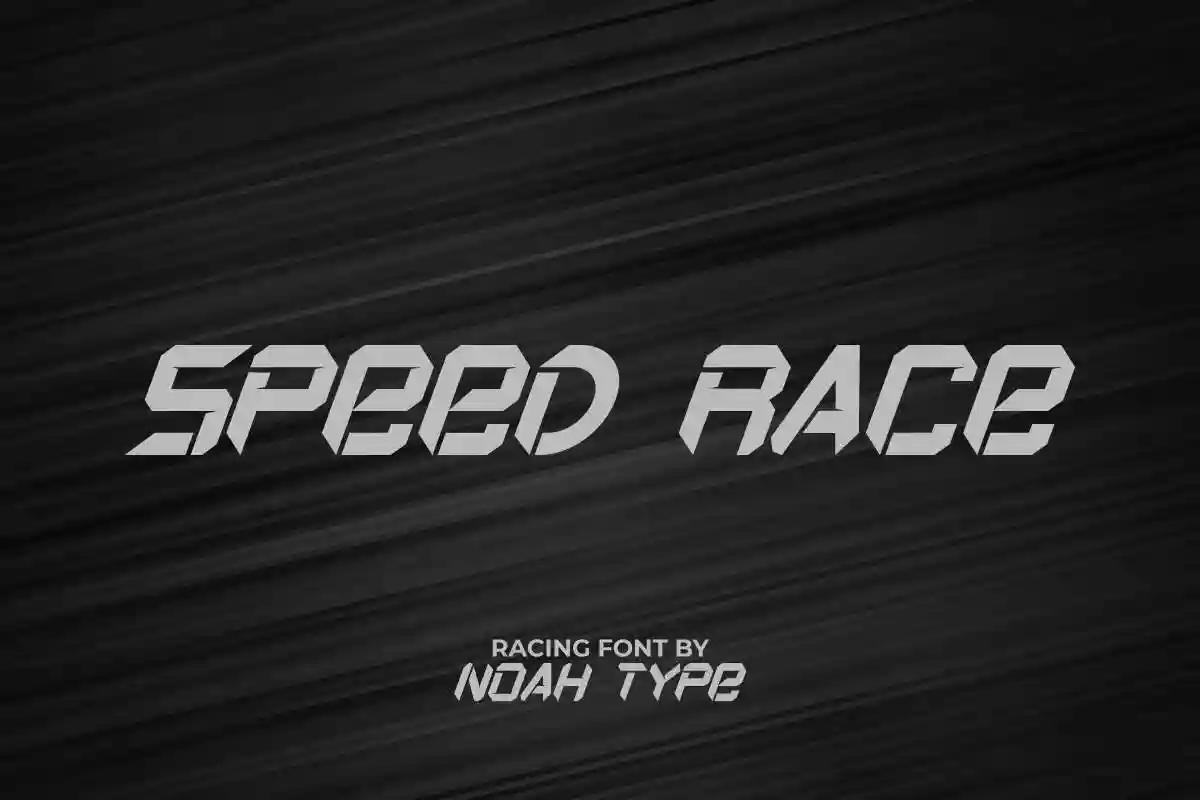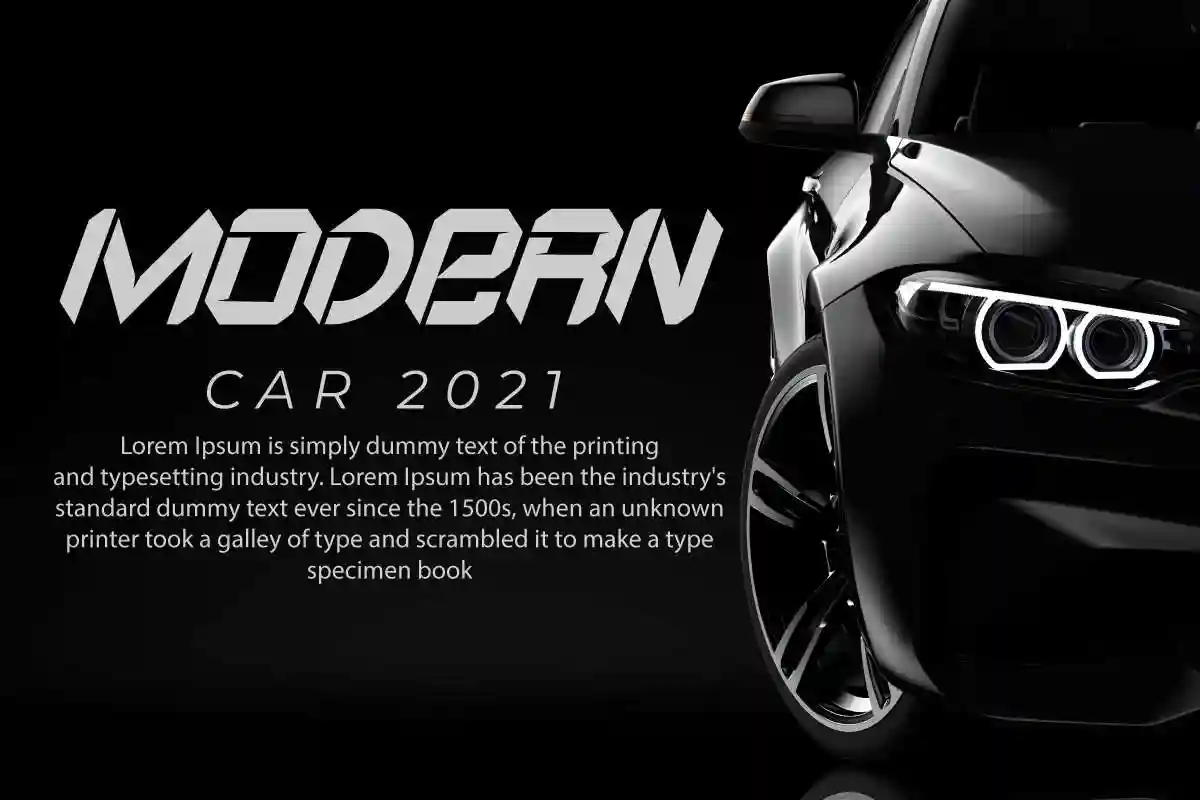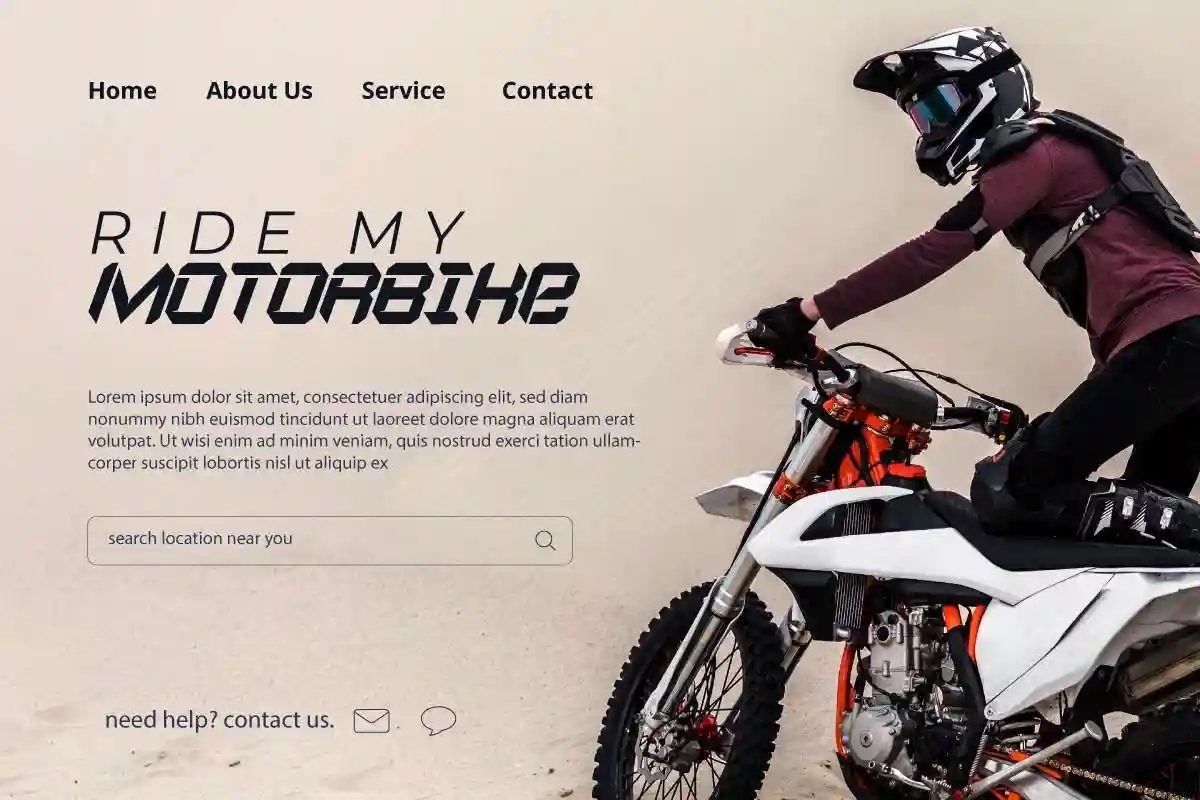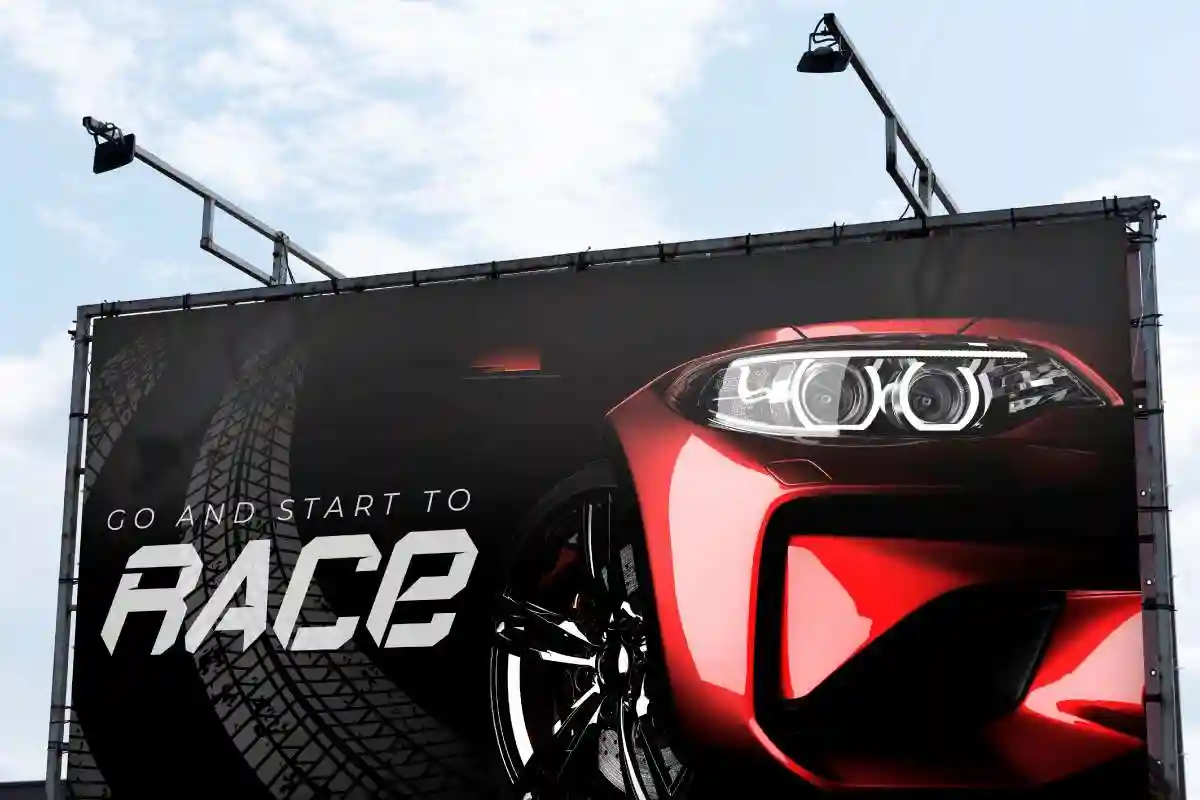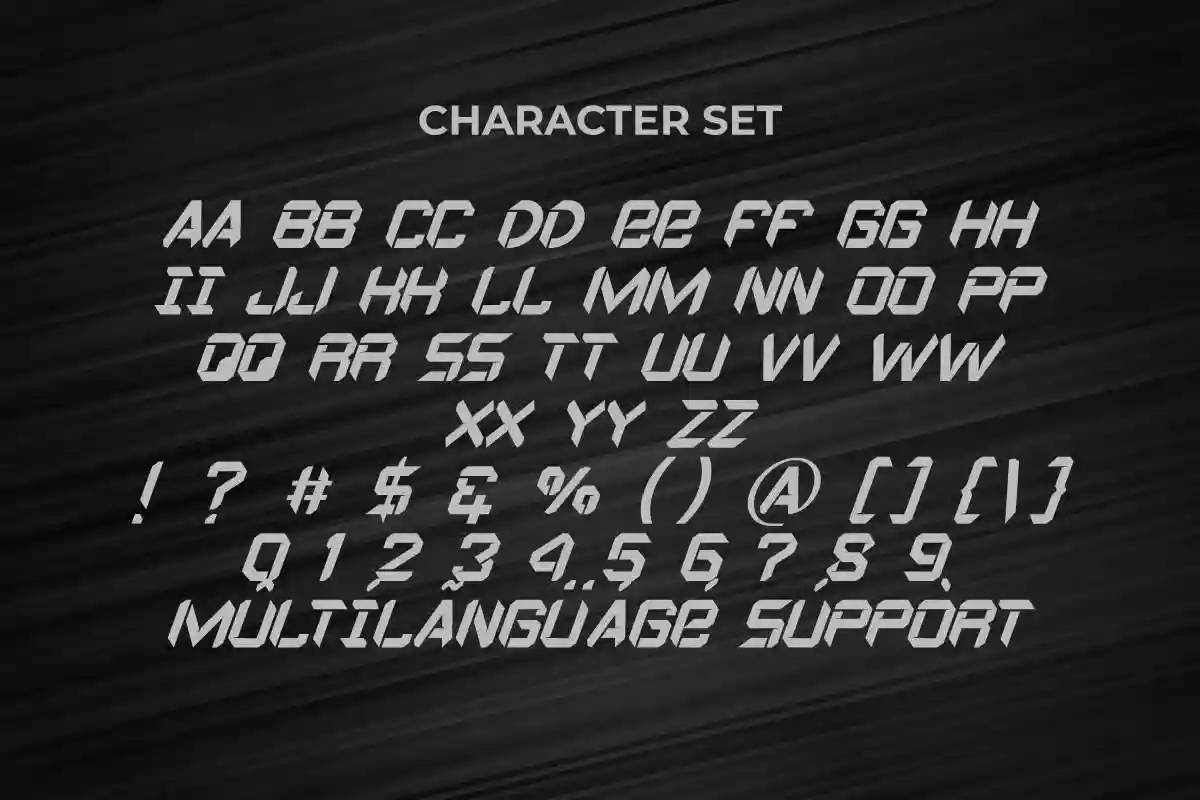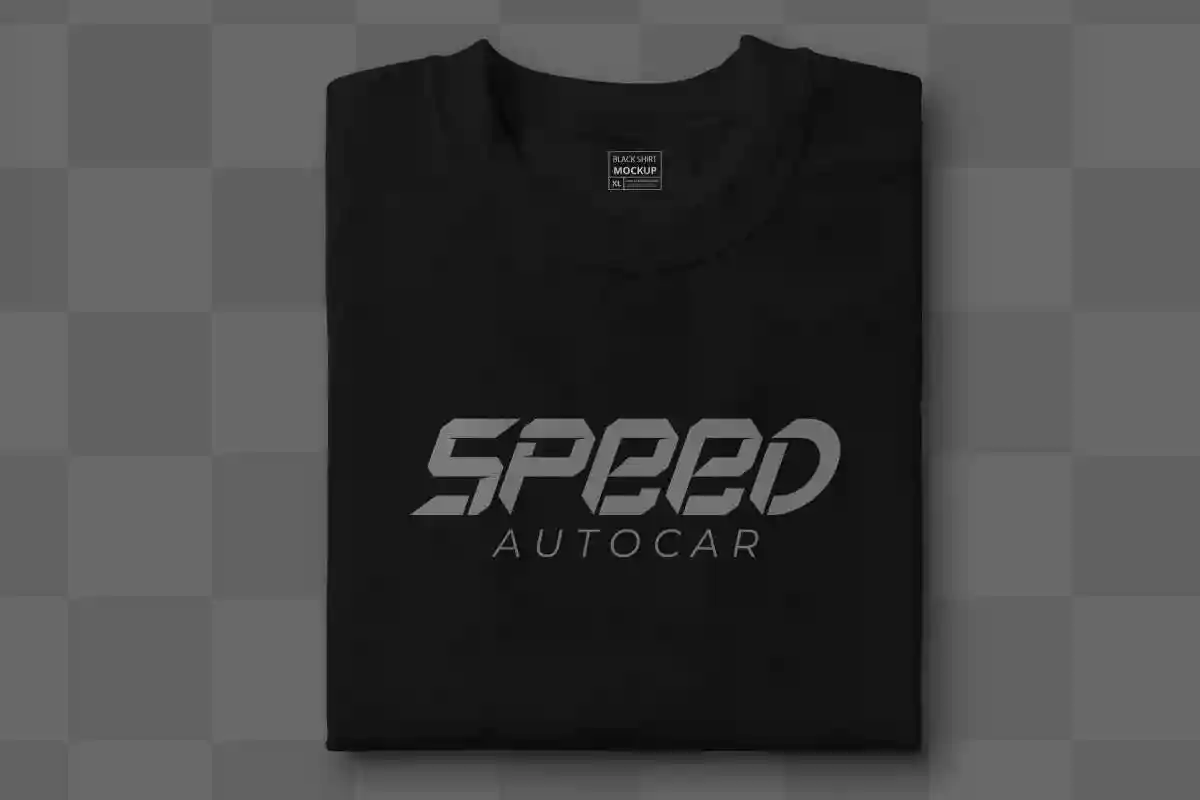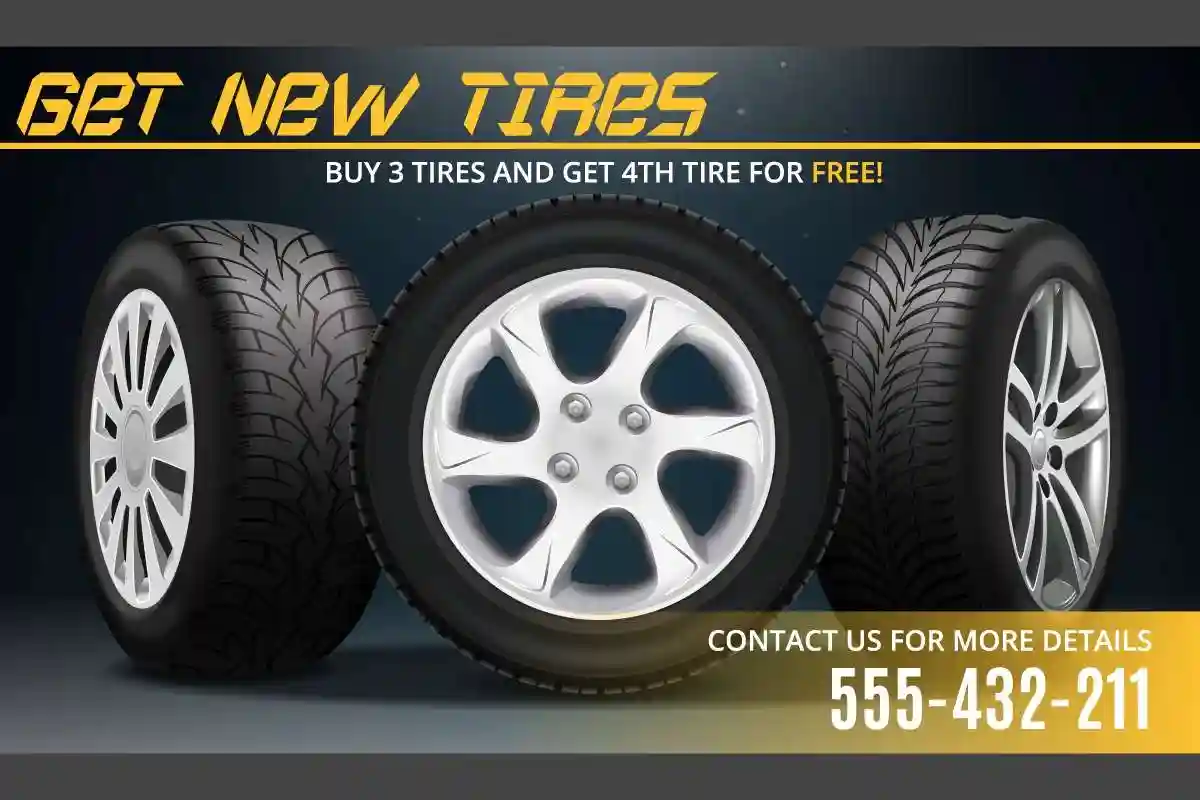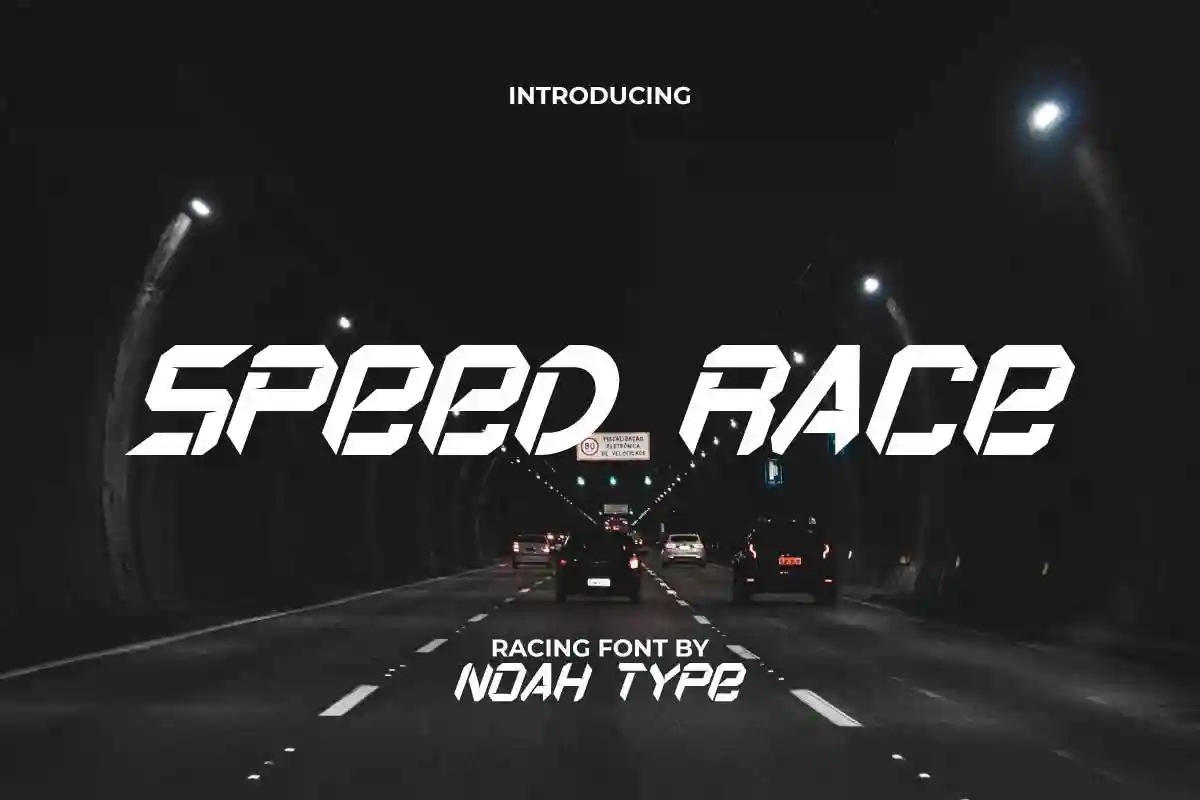
Speed Race Font is a techno sans serif display font inspired by the racing world. It has a unique style that will bring the special effect to the design. It will works for games, technology, events, spaceship and any other things. Speed Race Font includes full set of Uppercase and Lowercase Basic Characters, Numerals and Punctuation. You can also combine two or more styles on the text like we did on the cover, so you will great even more unique and special font. The font is perfect for many projects, headlines, logos, poster, tittle, products, etc